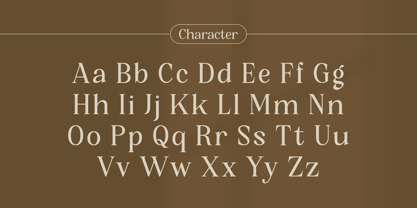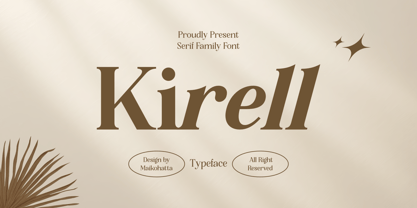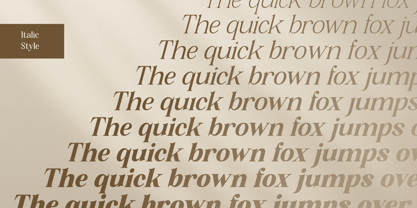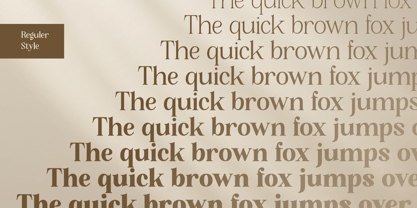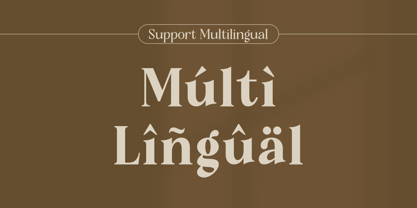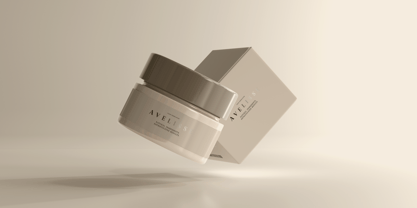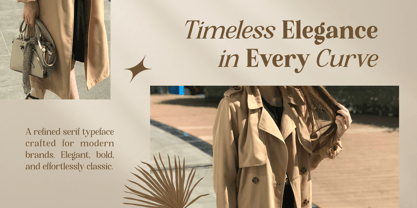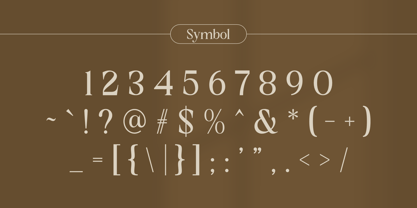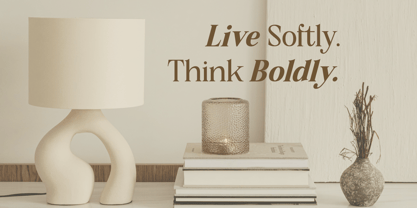
Kirell
by Maikohatta
The Kirell Font Family was designed by Gilang Ternadho and published by Maikohatta. Kirell contains 9 styles and family package options.
Kirell is a refined and sophisticated serif font that blends classic charm with a modern twist. Designed by Maikohatta, Kirell features sharp serifs, graceful curves, and high contrast strokes that give it a timeless, editorial feel. This typeface is perfect for branding, high-end packaging, fashion magazine headlines, invitations, and elegant logo designs.
The distinct letterforms, such as the stylishly curved “r” and the sleek, extended “l,” add personality while maintaining legibility. With its luxurious look and versatile functionality, Kirell effortlessly elevates any creative project that calls for elegance and sophistication.